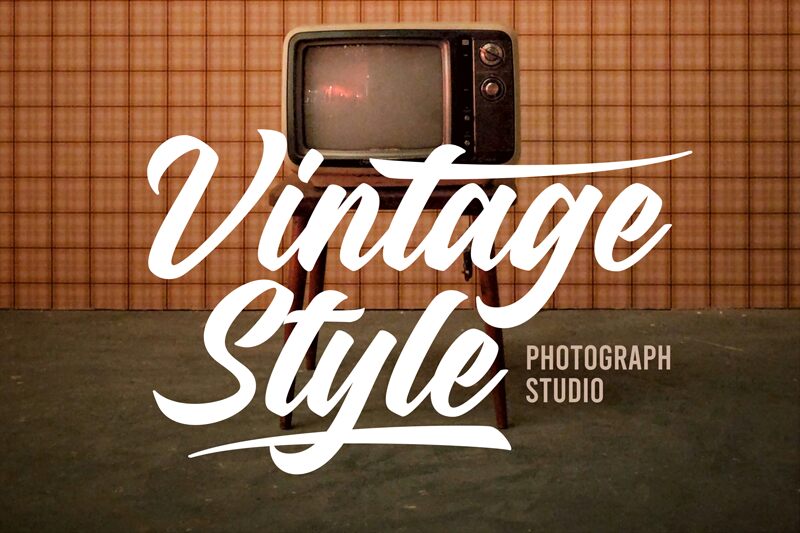
Dirtylane
Dirtylane font designed by Riyadh Rahman, has a flowing calligraphic style and is characterized by light, thin strokes. Matching softness and an elegant shape of its characters match perfectly with the large swashes added whenever possible in some of the letters. The free calligraphy handwritten font is elaborately crafted for showcasing some of the most beautiful typographic views.
Use it to design quotes, phrases, invitations, business cards, magazines covers and spreads where you would use it mainly for headlines or even other modern art designs.